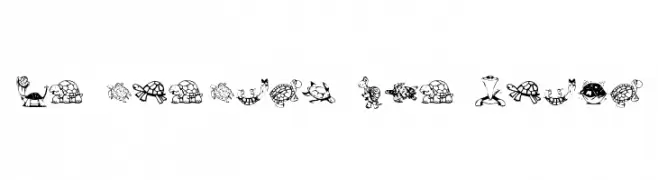
A decorative font featuring whimsical illustrations for each character.
Cartoon turtle illustrations replace standard alphanumeric characters.
A decorative dingbat font with assorted hand-drawn illustrations.
Cartoonish, illustrated font with bold outlines and playful character drawings.
Cartoonish decorative font with character-based illustrations.